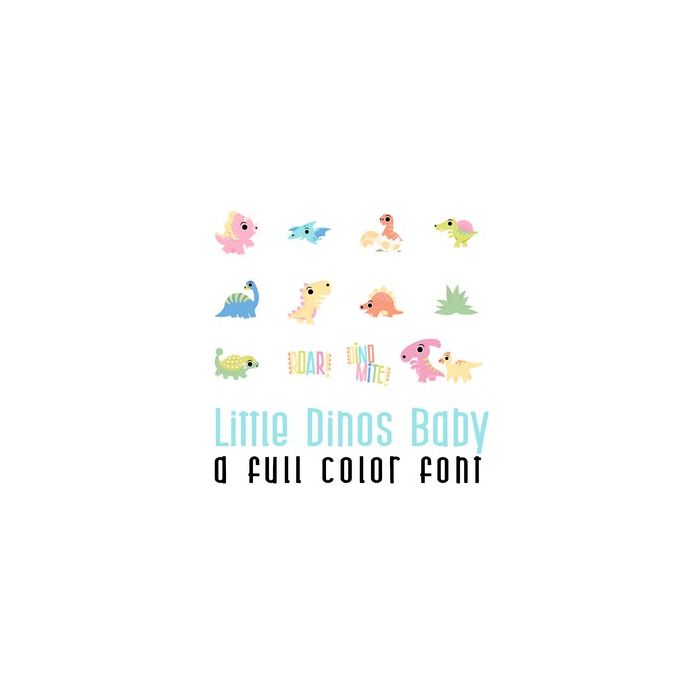
This adorable full-color doodlebat font features 26 adorable dinosaurs. Perfect for cards, crafts, gifts, decor, scrapbook pages, planner stickers, and more!